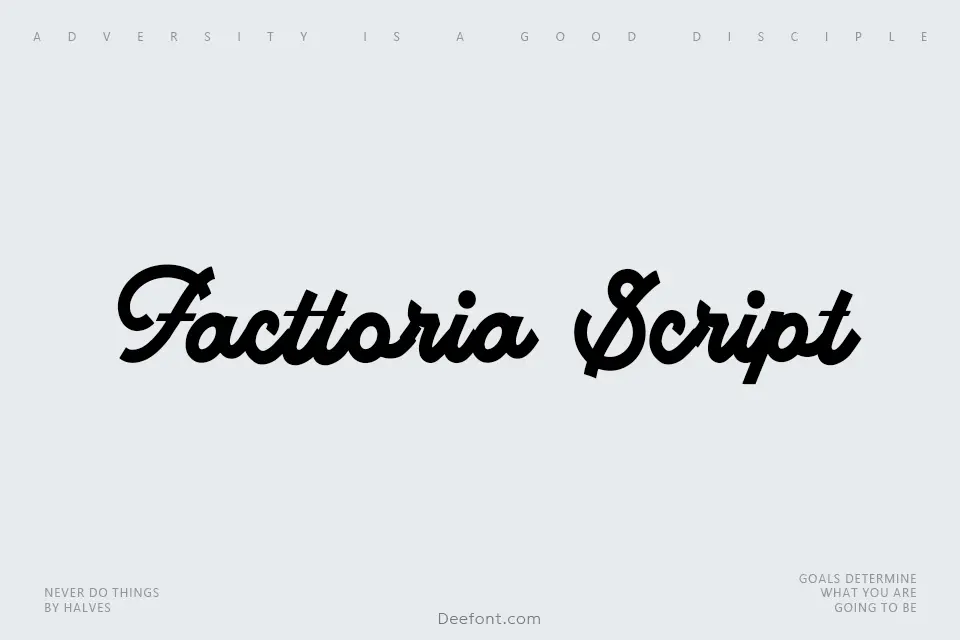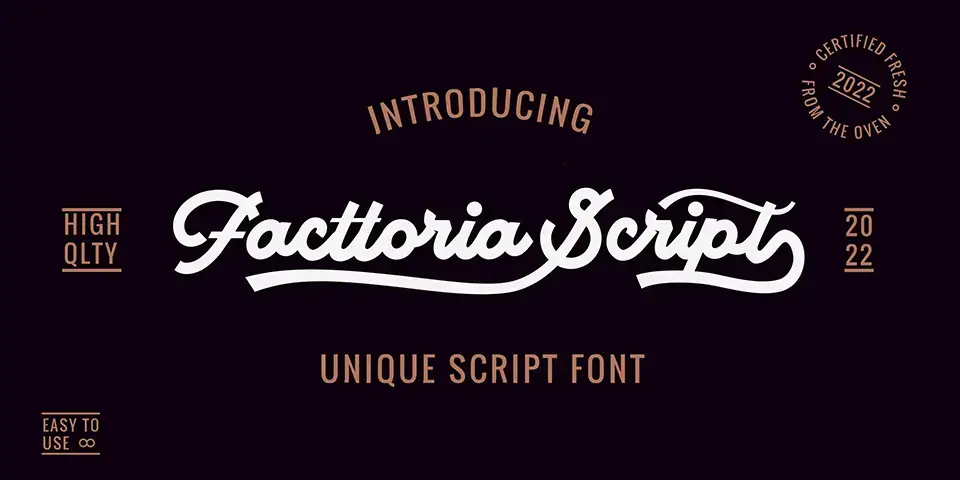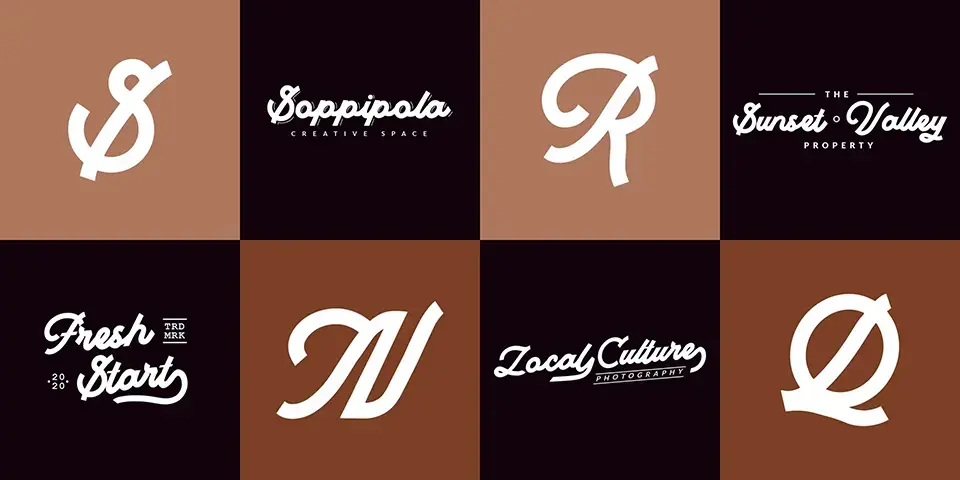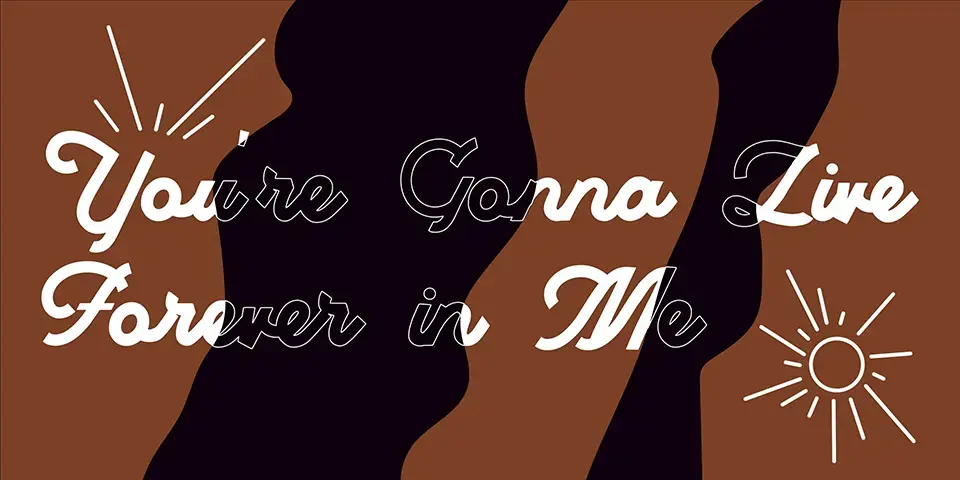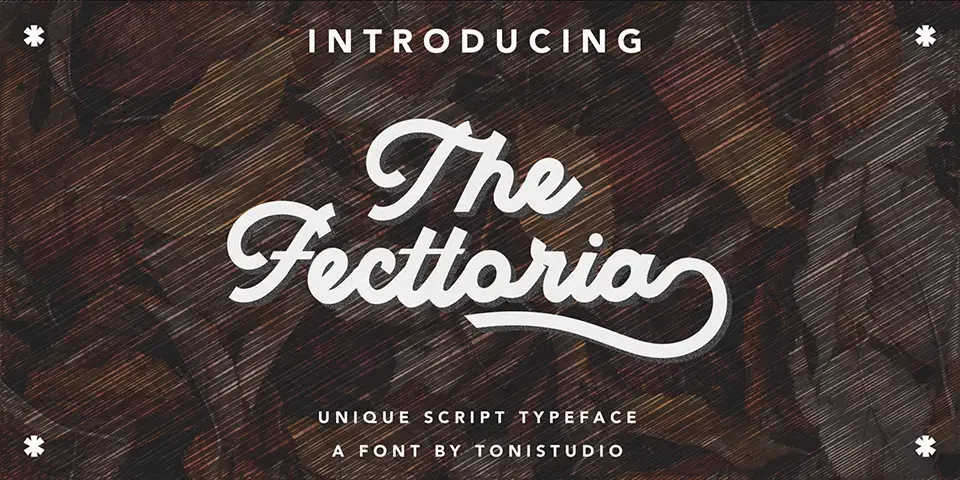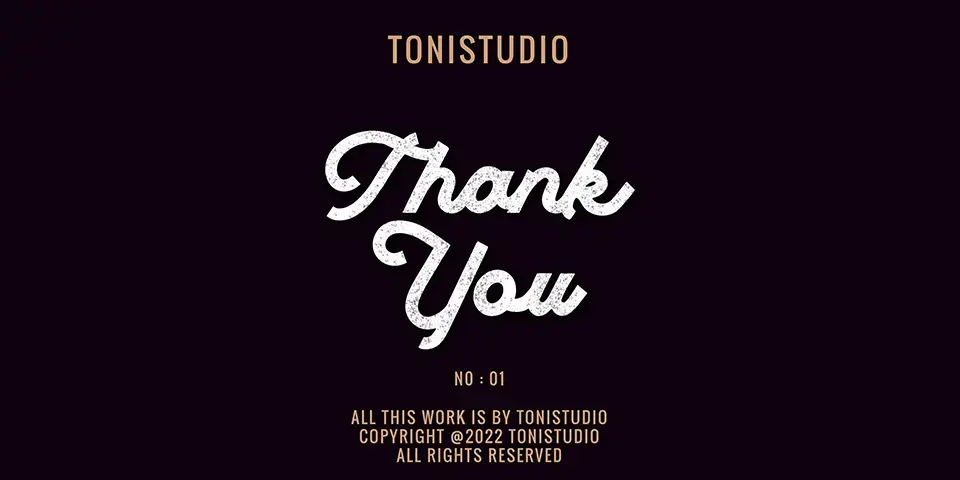
Facttoria Script Font
Facttoria Script is a bold calligraphic script font with thick, flowing strokes and a confident retro vibe. Its vintage sign-painting feel suits eye-catching logos, posters, packaging, storefronts and social media graphics, especially when a nostalgic, handcrafted personality is needed.